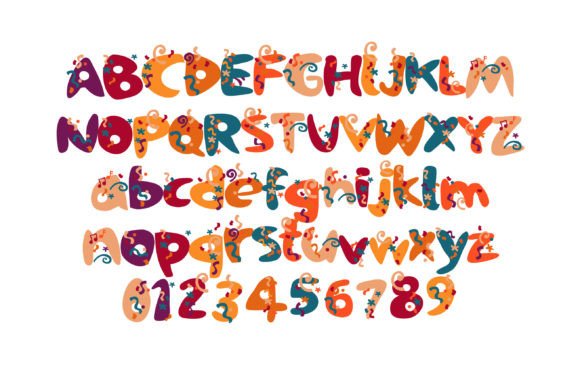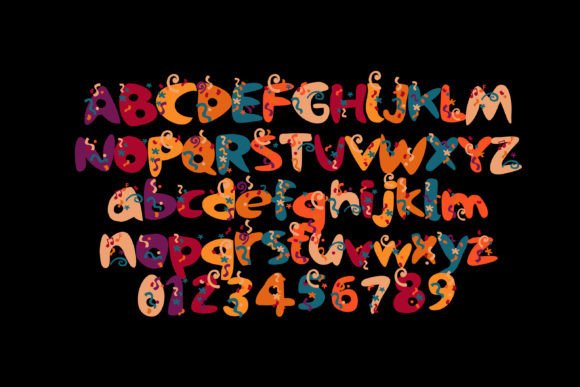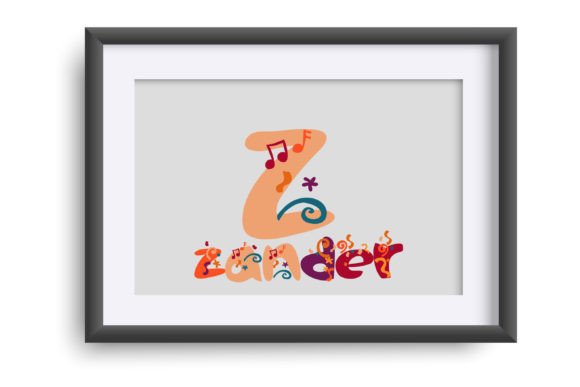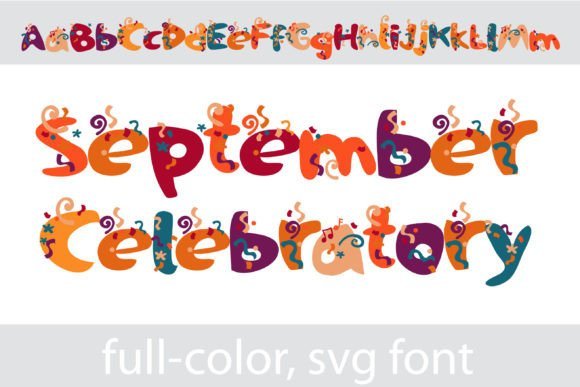
Introduction to September Celebratory Font
This full-color font features a fun font in an autumn color palette, covered in confetti .
Why Choose September Celebratory Font?